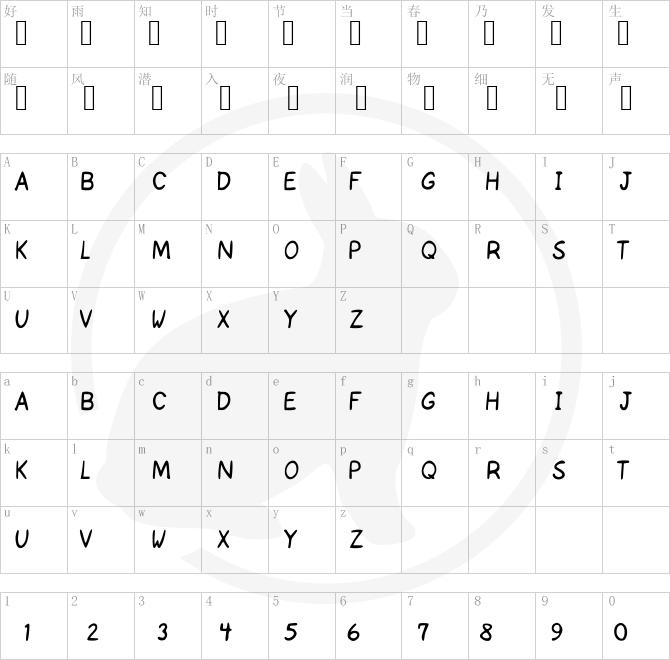
- Font Name:000_INSOMNIAC_COMIC_DIALOGUE
- Subfamily:TomSmithInsomniacOvrLrdComicDialogue
- Full Name:000_INSOMNIAC_COMIC_DIALOGUE
000_INSOMNIAC_COMIC_DIALOGUE.ttf is a very beautiful artistic font, 000_INSOMNIAC_COMIC_DIALOGUE.ttf is widely used in the design and printing of various books and pictures,000_INSOMNIAC_COMIC_DIALOGUE.ttf has a strong visual impact,000_INSOMNIAC_COMIC_DIALOGUE.ttf is a commonly used font in newspapers, magazines and books, and is used in posters, e-commerce Poster design, store design, logo design, font design and other fields.000_INSOMNIAC_COMIC_DIALOGUE.